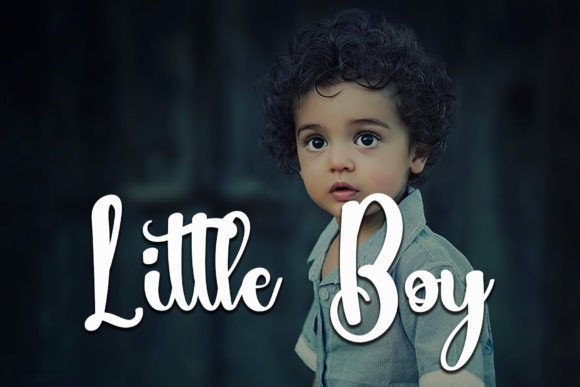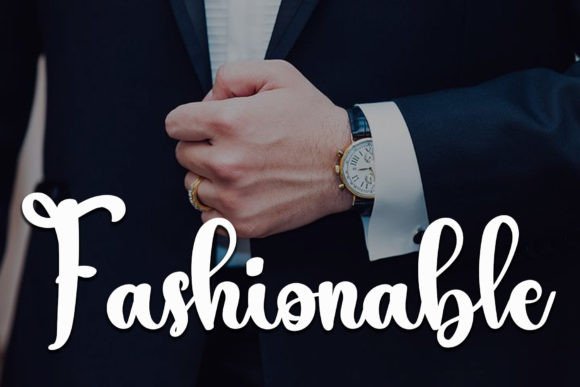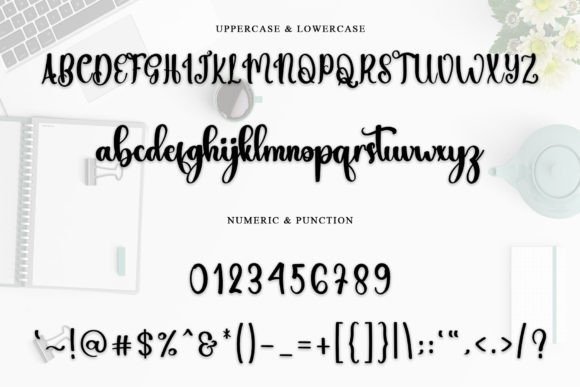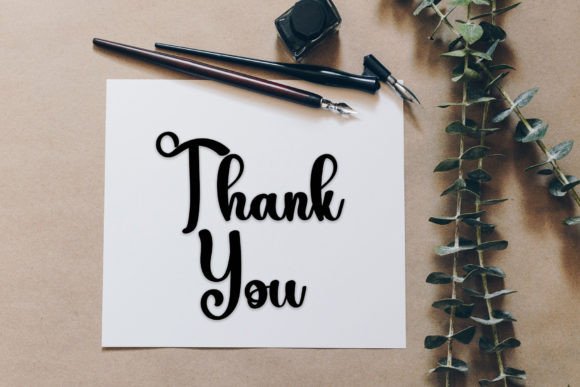
Discover the Timeless Charm of Chicken Font
Have you ever stumbled upon a font that makes you feel like you’ve discovered a hidden treasure? For me, that moment came when I first laid eyes on the elegant Chicken Font. Its unique blend of classic and modern elements left me speechless and eager to experiment with it. As a designer, I know the thrill of finding that perfect font to elevate a project from good to great.
The Chicken Font is a beautiful handwritten font that exudes an air of sophistication and refinement. Whether you’re working on a wedding invitation, a brand logo, or a digital product, this font is sure to add a touch of elegance to your designs. Its versatility and timeless style make it a valuable asset for any designer looking to create memorable and stunning projects.
Key Features of “Chicken Font”
- Font Family: A unique, hand-drawn font family with a playful, whimsical feel.
- Character Set: Includes a wide range of characters, including uppercase and lowercase letters, numbers, punctuation marks, and special characters.
- Language Support: Supports multiple languages, including English, Spanish, French, German, Italian, Portuguese, and many more.
- Unique Characteristics: Features a distinct, hand-drawn style with subtle imperfections, giving it a charming, human touch.
Chicken Font Review
Overall, I’m quite impressed with the Chicken Font – it’s a fun, playful typeface that’s sure to bring a smile to your face! ✨
The designer has done a great job of capturing the whimsy and charm of a cartoon chicken, making it perfect for a wide range of projects from children’s books to social media graphics.
The font is well-designed, with clean lines and a clear hierarchy of elements. It’s also highly customizable, with plenty of options for tweaking the look and feel to suit your needs.
- Playful and fun design that’s sure to stand out
- Highly customizable to suit your needs
- Clean lines and clear hierarchy of elements
While the Chicken Font is a great choice for many projects, there are a few limitations to consider: ⚠️
- May not be suitable for formal or professional projects
- Can be a bit overwhelming if used in large quantities
- Lack of italic and bold styles
Overall, I’d highly recommend the Chicken Font for any project where a playful, whimsical touch is needed. Just be mindful of the limitations and use it judiciously.
Some common use cases for Chicken Font include:
- Adding a playful touch to social media graphics and advertisements.
- Creating eye-catching titles and headings for presentations and documents.
- Adding a unique and quirky touch to blog posts and articles.
Remember to use Chicken Font sparingly and in moderation, as it can be quite bold and eye-catching.